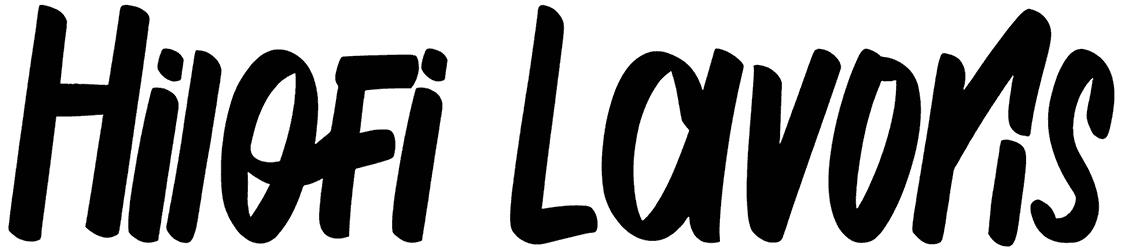
Hilofi Lavoris Font
This is Hilofi Lavoris, a handwritten font with a bold and modest face. This script font, even without numerals, some lowercase, and almost all of the punctuation, can add a cheerful and refreshing mood to contexts. Hilofi Lavoris would be a nice display for many projects, such as handwritten quotes, packaging, apparel, or more of the same.